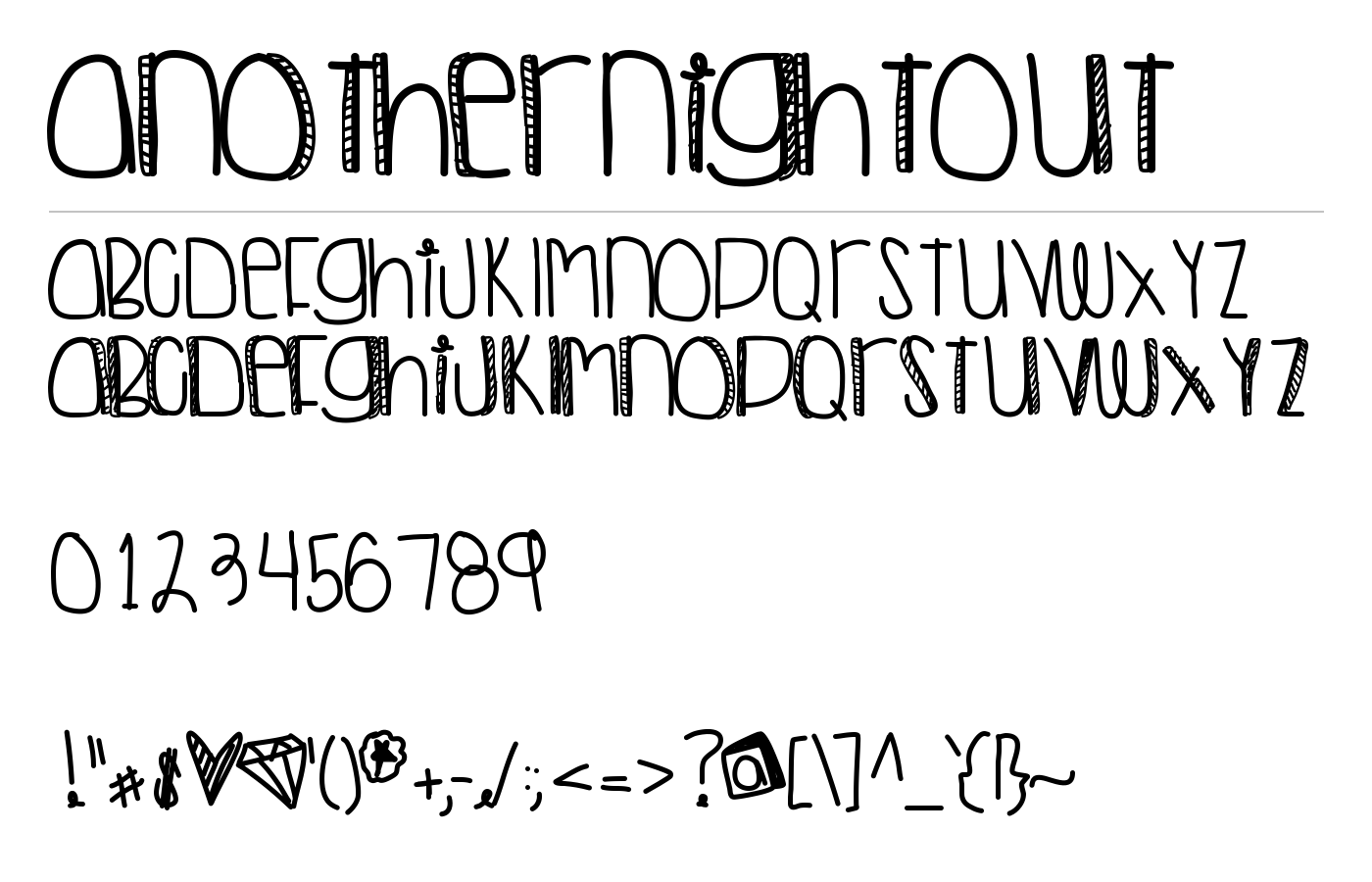
AnotherNightOut is a playful and casual handwritten sans serif font featuring narrow, tall letterforms with quirky, uneven strokes and a unique mix of solid and striped textures. Its light weight and whimsical character make it perfect for projects that want to convey a fun, creative, and informal vibe, ideal for greeting cards, invitations, youth-oriented branding, and playful headlines. This font adds a hand-drawn charm that feels personal and approachable, adding distinct personality to any design.
AnotherNightOut Font
About AnotherNightOut Font